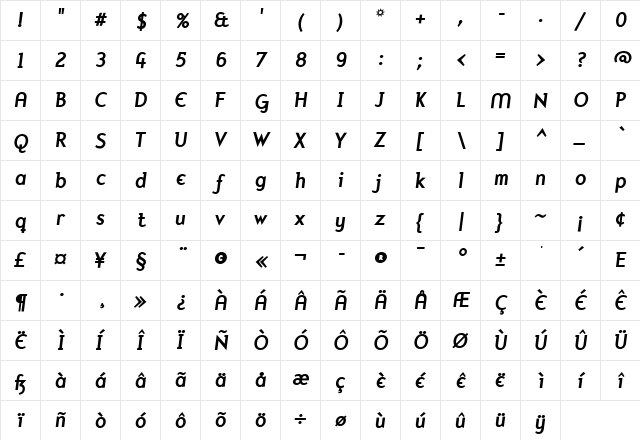
Mercury Bold Italic Font Preview
Design Context for Mercury Typeface
Mercury offers clean, dependable letterforms without strong stylistic allegiance, making it a practical choice for designers who need flexibility. Its italic angle brings a sense of urgency and motion to the letterforms. The heavy weight commands attention and anchors typographic hierarchies.
Pro Tip: Try Mercury for annotation and caption copy alongside an upright companion — the contrast in angle creates a dynamic but ordered typographic system.